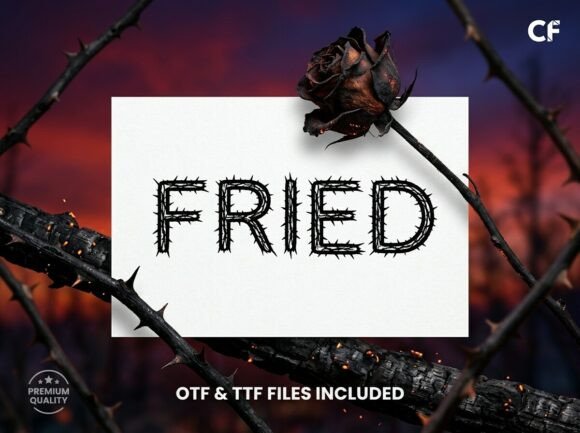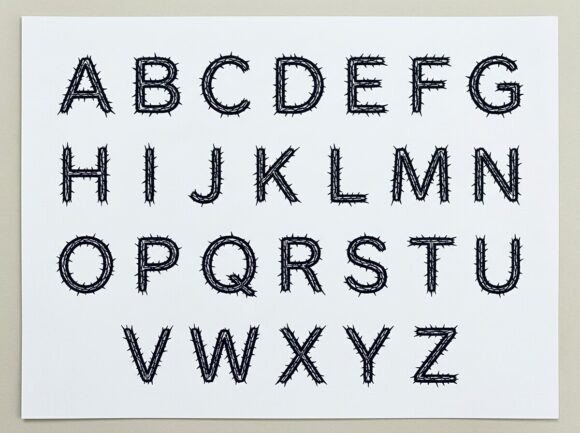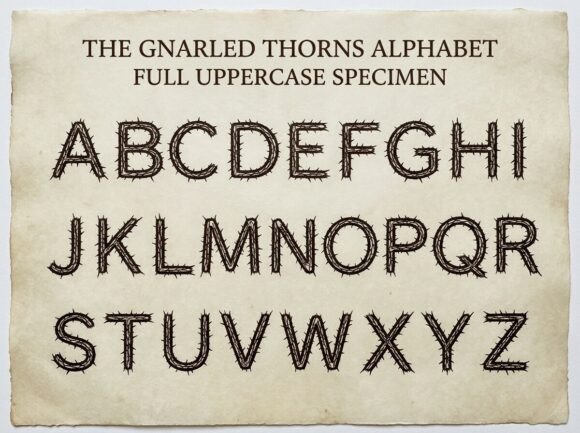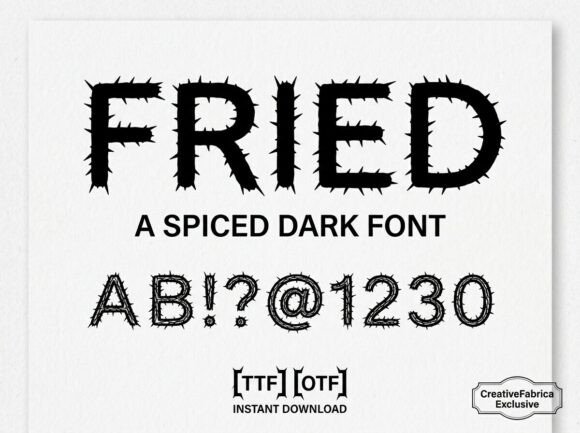
Introducing Fried Font: The Ultimate Decorative Display Font
Are you tired of using the same old fonts for your designs? Look no further! Fried Font is a stunning decorative display font that is sure to grab attention and set your creations apart from the rest. With its unique artistic elements and strong visual personality, this font is perfect for designers, crafters, and creators who want to make a statement.
What Makes Fried Font Special?
Fried Font is a versatile font that can be used for a variety of design projects, from bold headlines and artistic logos to creative packaging. Despite its decorative nature, this font maintains a professional and polished finish, making it suitable for a wide range of applications.
Key Features of Fried Font
- Unique Artistic Elements: Fried Font features intricate and artistic elements that give it a distinctive look. Each letter is carefully crafted to make a visual impact.
- Strong Visual Personality: This font has a bold and confident personality that is sure to grab attention. It’s perfect for designs that need to stand out.
- Versatile: Fried Font can be used for a variety of design projects, from headlines and logos to packaging and more.
- Professional Finish: Despite its decorative nature, Fried Font maintains a professional and polished finish, making it suitable for a wide range of applications.
IMPORTANT NOTE BEFORE PURCHASE: Fried Font is an ALL-CAPS (Uppercase Only) display typeface. It does not include lowercase letters. It is specifically designed for high-impact headlines, logos, and decorative initials where every letter is a work of art.
Why Choose Fried Font?
There are many reasons why Fried Font is an excellent choice for designers and crafters:
- Stand Out from the Crowd: With Fried Font, you can create designs that are truly unique and eye-catching.
- Professional Results: Fried Font is designed to produce professional-looking results, even for those without extensive design experience.
Design Ideas Using Fried Font
- Bold Headlines: Use Fried Font to create eye-catching headlines for your blog posts, articles, or social media graphics.
- Artistic Logos: Create a unique and memorable logo for your business or brand using Fried Font.
- Creative Packaging: Use Fried Font to add a touch of personality to your product packaging.